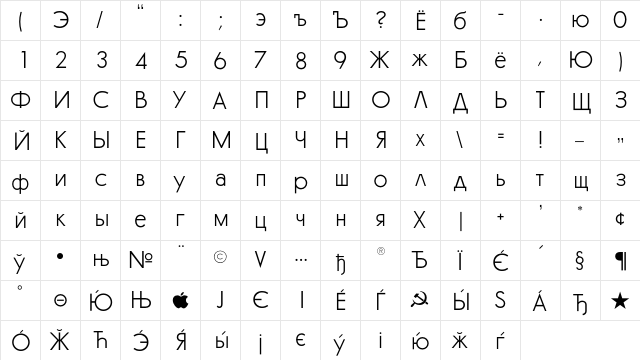
GlasnostLight Regular
Design Context for GlasnostLight Typeface
GlasnostLight is a composed and adaptable typeface that performs quietly and consistently across a wide range of design contexts. Its slender proportions lend an understated elegance to any composition.
Pro Tip: Pair GlasnostLight with a font of contrasting weight or personality to build a more expressive typographic hierarchy.